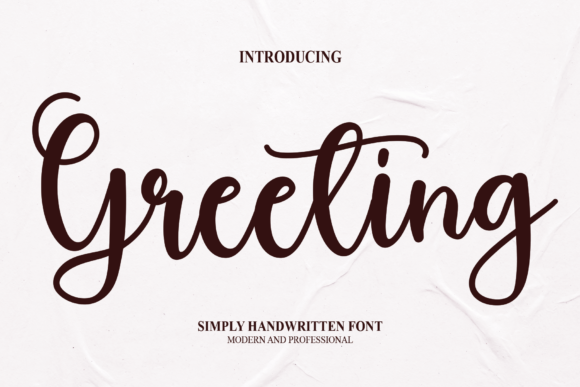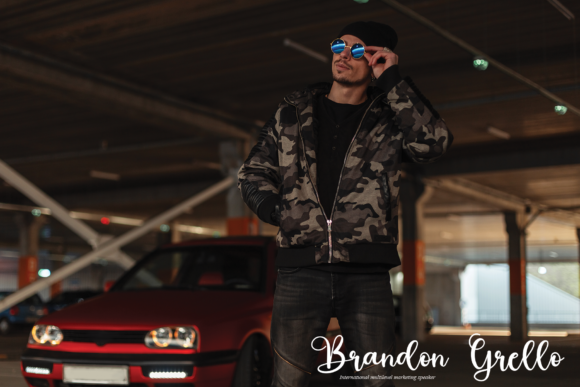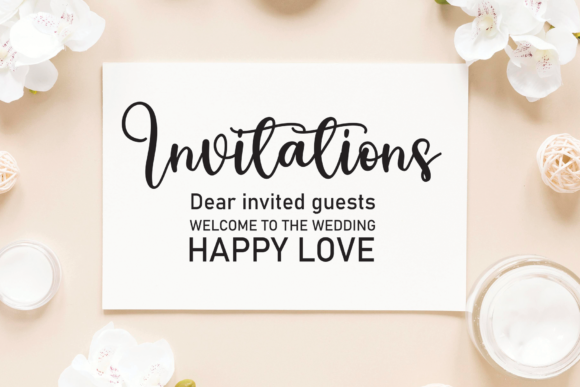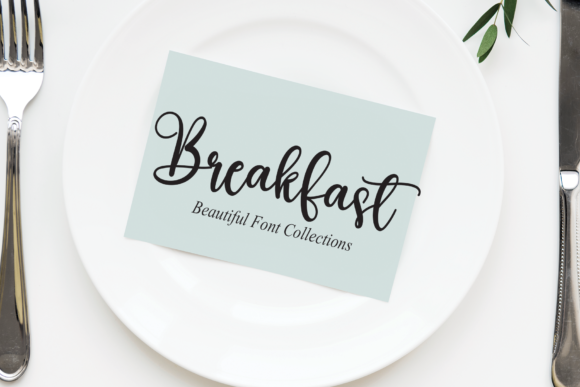
About Greeting Font
Greeting is a lovely and delicate script font that exudes elegance and class. This font was particularly crafted for those who need a beautiful and refreshing look to their designs.